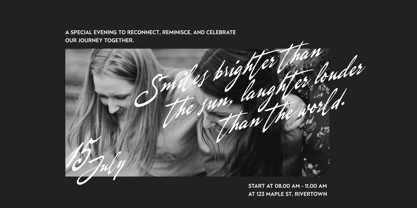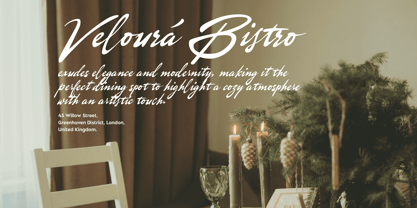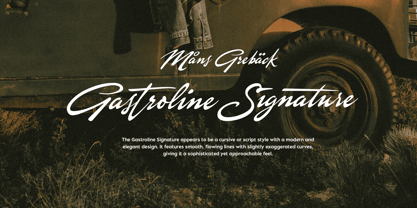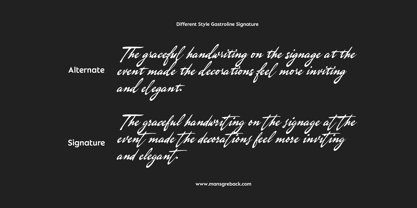
Gastroline Signature
by Mans Greback
The Gastroline Signature Font Family was designed by Måns Grebäck and published by Mans Greback. Gastroline Signature contains 2 styles and family package options. More about this family
Gastroline Signature has a graceful, flowing presence, like an artist's flourish.
This font is a handwritten calligraphy style, with connecting cursive strokes. The letters lean forward in a confident and dynamic stance. It could be used for the branding of an upscale beauty product or as a heading in a fashion magazine.
The font is built with advanced OpenType functionality and guaranteed top-notch quality, containing stylistic and contextual alternates, ligatures and more automatic and manual features; all to give you full control and customizability.
It has extensive lingual support, covering all Latin-based languages, from North Europa to South Africa, from America to South-East Asia. It contains all characters and symbols you'll ever need, including all punctuation and numbers.
Mans Greback designed Gastroline Signature to capture the elegance and fluidity of a calligraphic hand, with a modern, streamlined feeling.